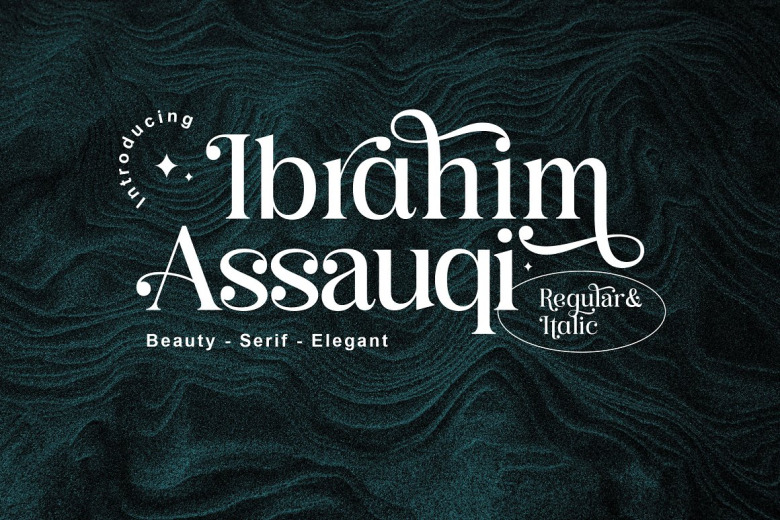
IbrahimAsSyauqi Font
IbrahimAsSyauqi also provided modernserif font which contain punctuation, numeral, and multilingual support. There is a full set of stylistic alinates for the lowercase characters as well:
This incredible asset will fit in well with branding projects, Logo design, Clothing Branding, product packaging, magazine headers and so much more! It can also work on any background image/frame!
IbrahimAsSyauqi Serif Font